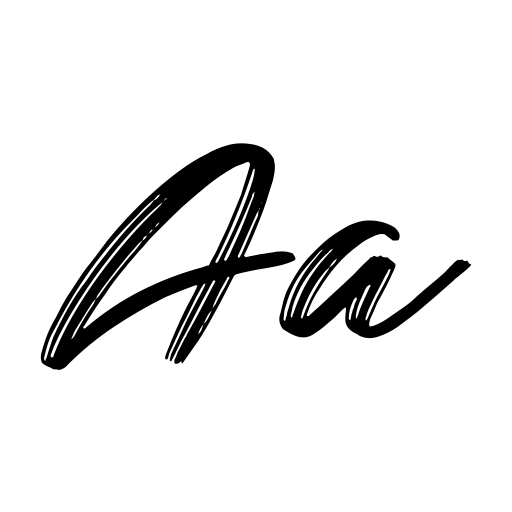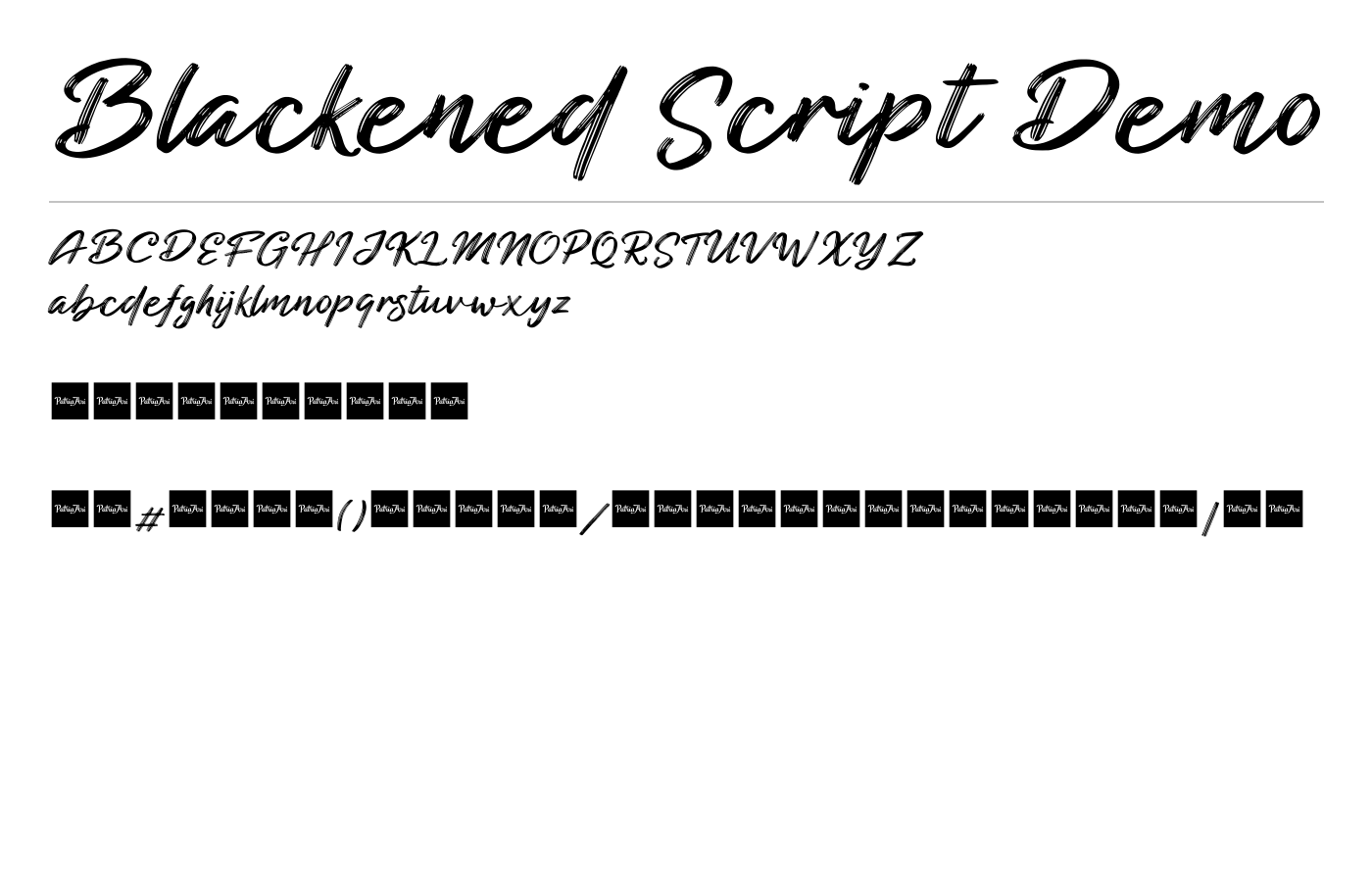
Blackened Font is a lively and dynamic script typeface that combines a hand-painted brush style with bold, textured strokes. Its medium weight and flowing letterforms evoke an energetic yet casual feel, making it perfect for creative branding, posters, and expressive headlines where a personal, artistic touch is desired. This font shines in designs that need a vibrant, handcrafted look that feels both modern and approachable.
Blackened Font
About Blackened Font
| Font family | Blackened Font |
| Designer | patria Ari Wijonarko |